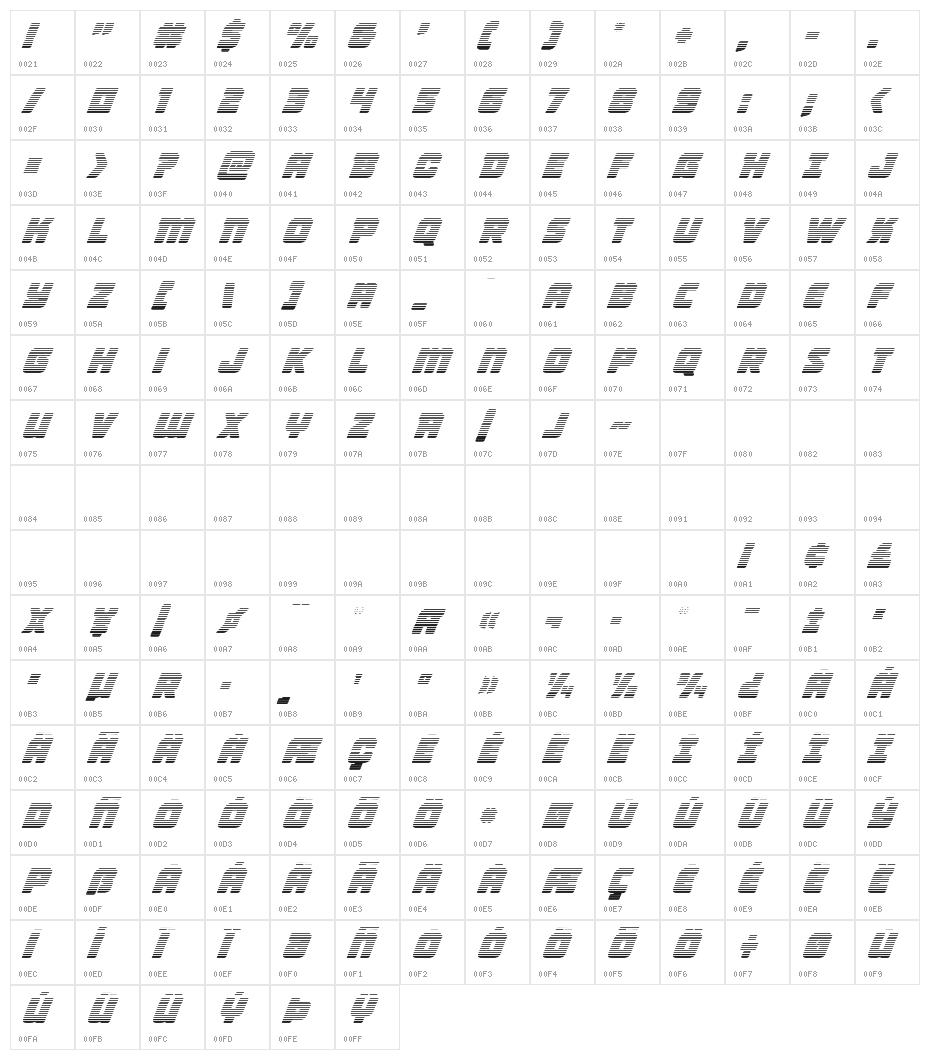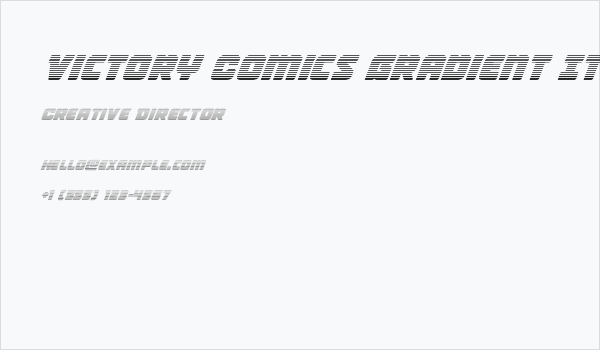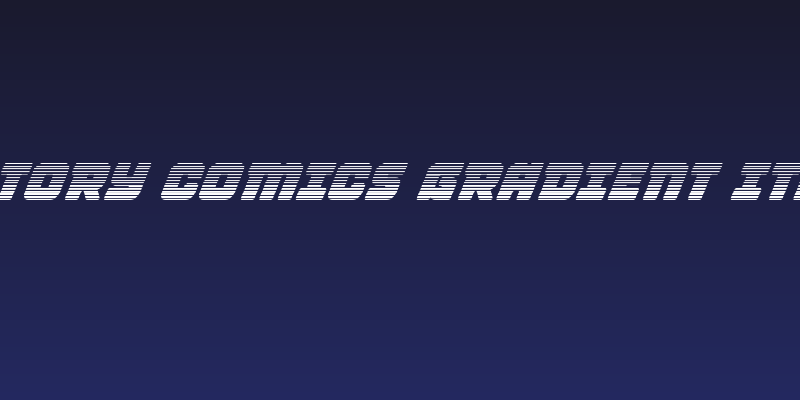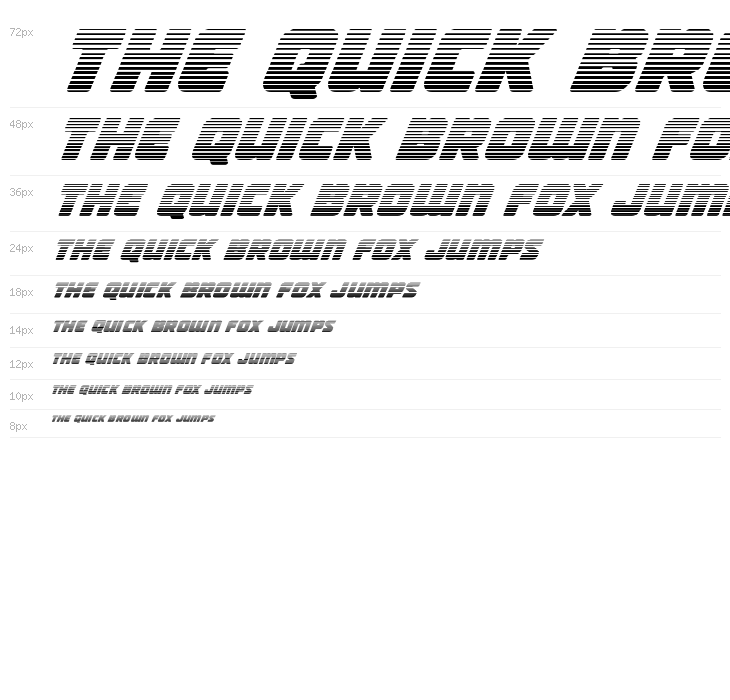
Victory Comics Gradient Italic Font
Victory Comics Gradient Italic Description
This font features a bold, dynamic style with a distinct gradient effect that gives the impression of movement and energy. The italicized letters add a sense of speed and modernity, making it ideal for projects that require a futuristic or tech-savvy appearance. The characters are constructed with horizontal lines that create a unique visual texture, enhancing its decorative appeal. The font maintains a consistent thickness throughout, ensuring readability while still offering a striking visual impact.
| Proposed Projects | Ideal for comic book titles, video game graphics, futuristic branding, and tech-related advertisements. |